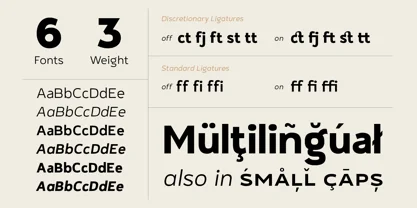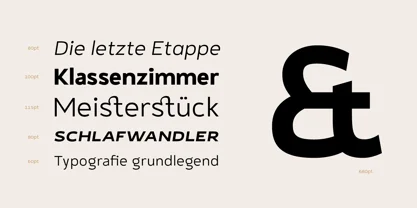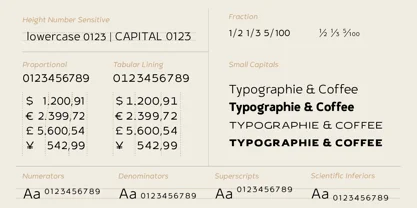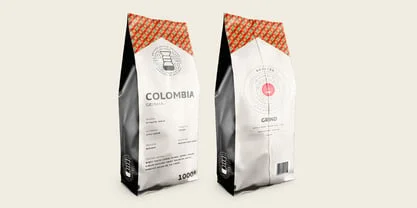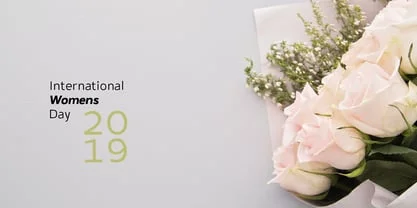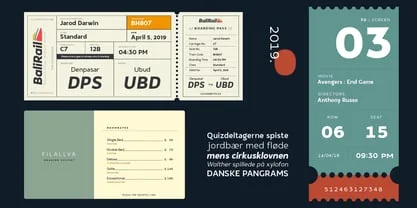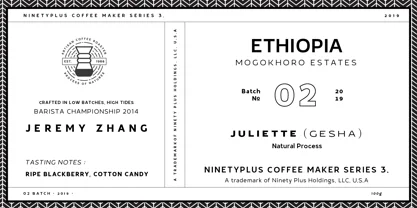
Gorga Grotesque Font
There is a particular satisfaction in finding a typeface that delivers versatility across print and screen contexts without compromise. Gorga Grotesque consistently provides it. The typeface brings a versatile sensibility to a broad range of creative disciplines, with consistent type colour across continuous text that holds up whether the work is print-first or screen-first.
In practice, Gorga Grotesque proves particularly effective for environmental graphics, editorial layouts, social media graphics, brand identity systems, poster creation. Designers reaching for it find that the type decisions feel resolved rather than laboured — a useful quality when client timelines are tight.
The range of applications extends to packaging design, advertising campaigns, logo design, signage systems. That breadth is deliberate: the proportions and spacing were stress-tested across a wide range of mock briefs before the typeface was finalised.
The consistent rhythm of Gorga Grotesque across a full paragraph creates the kind of even grey value that makes extended reading comfortable, a detail that matters more in long-form content than its subtlety might suggest.
Graphic designers working on identity systems find Gorga Grotesque a reliable choice for projects that demand both personality and restraint. The design avoids the self-conscious quirkiness that dates quickly, settling instead for considered distinctiveness that holds up over time.